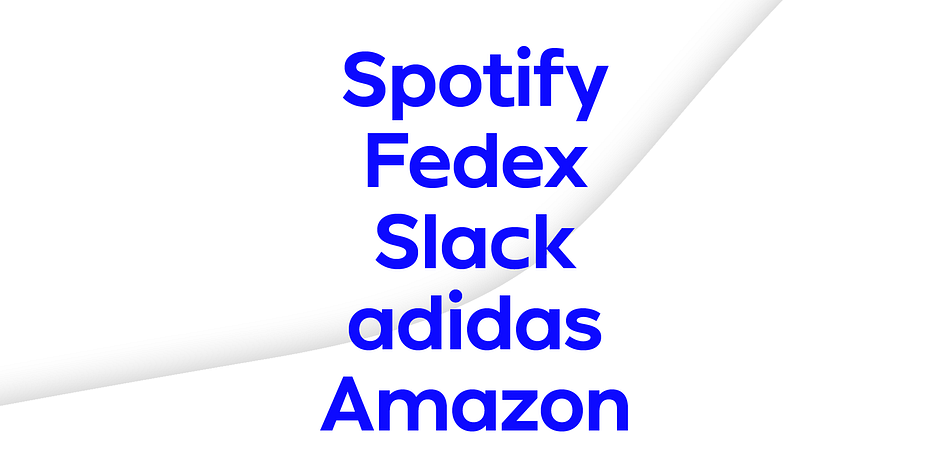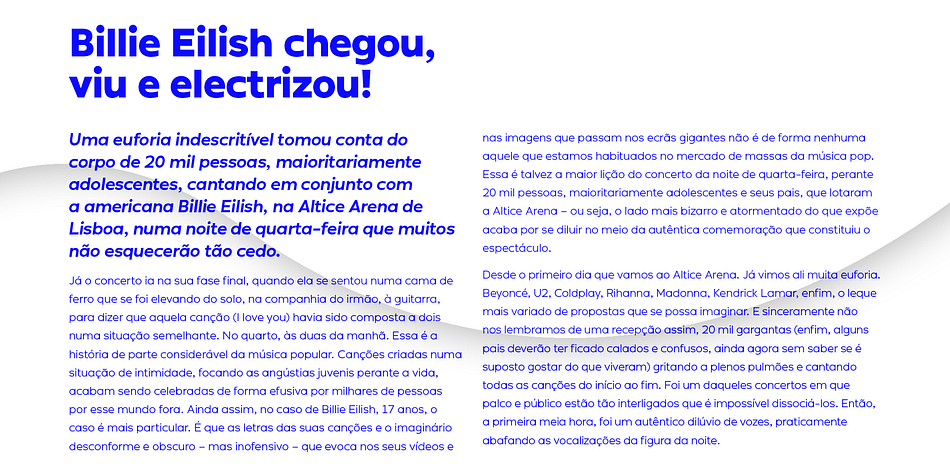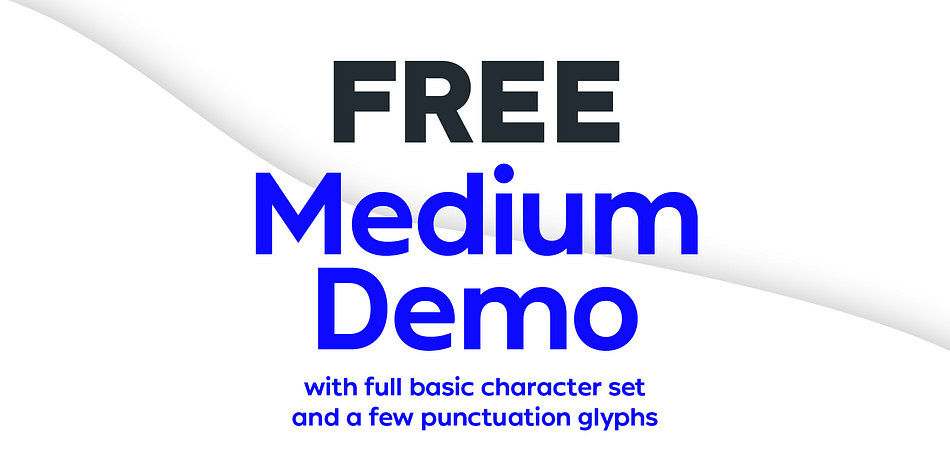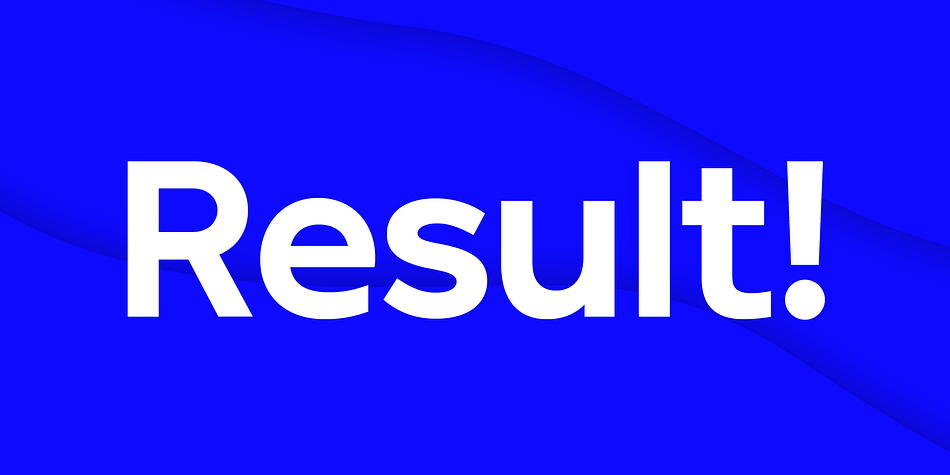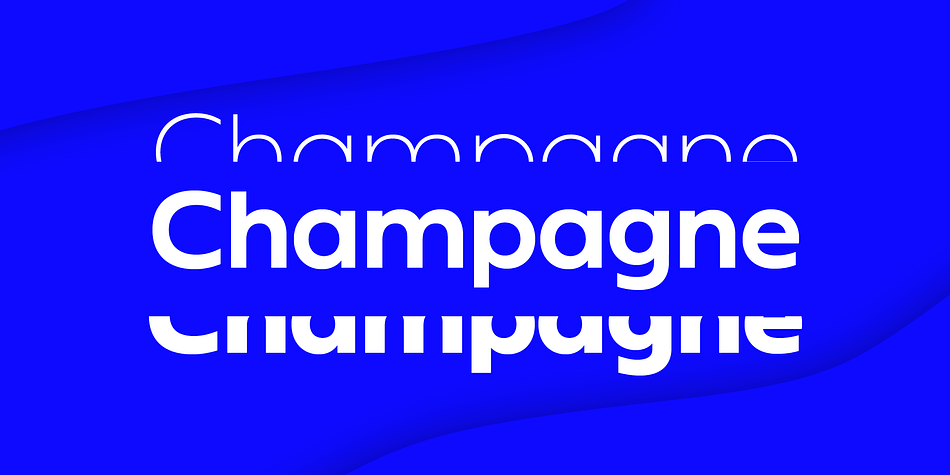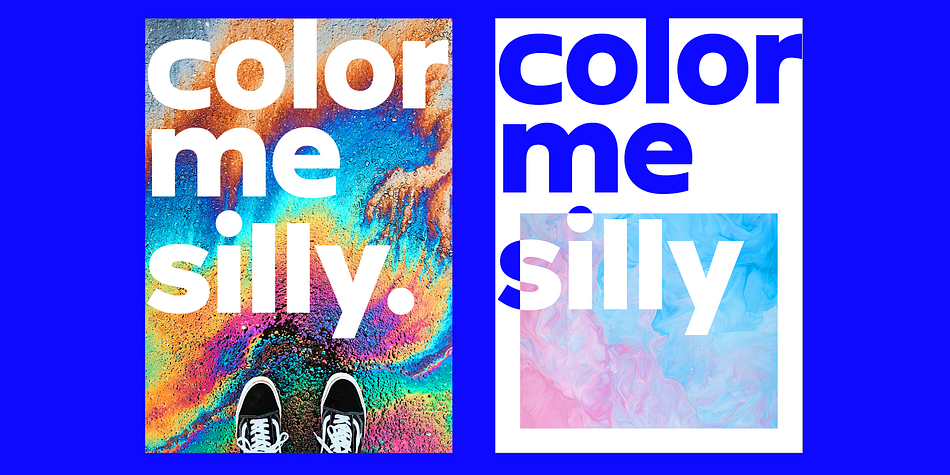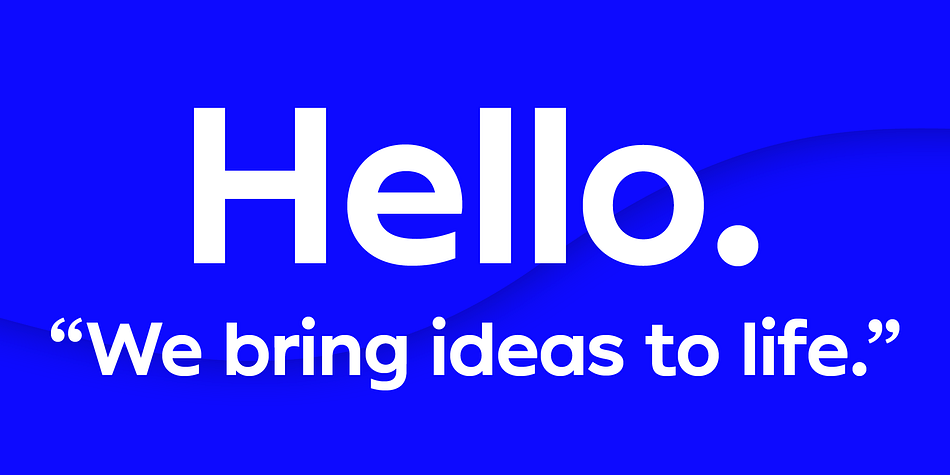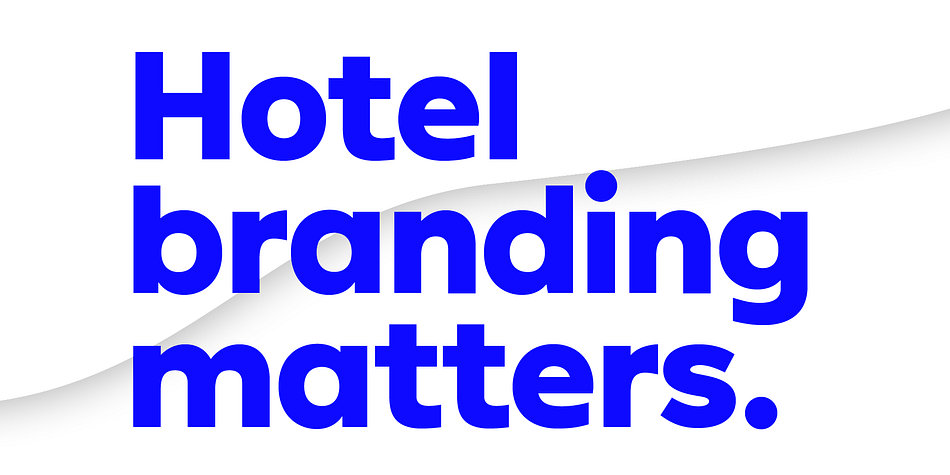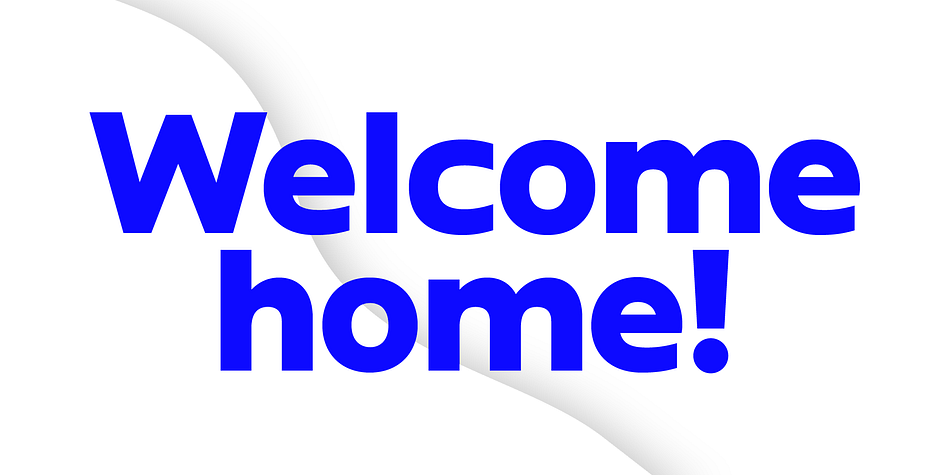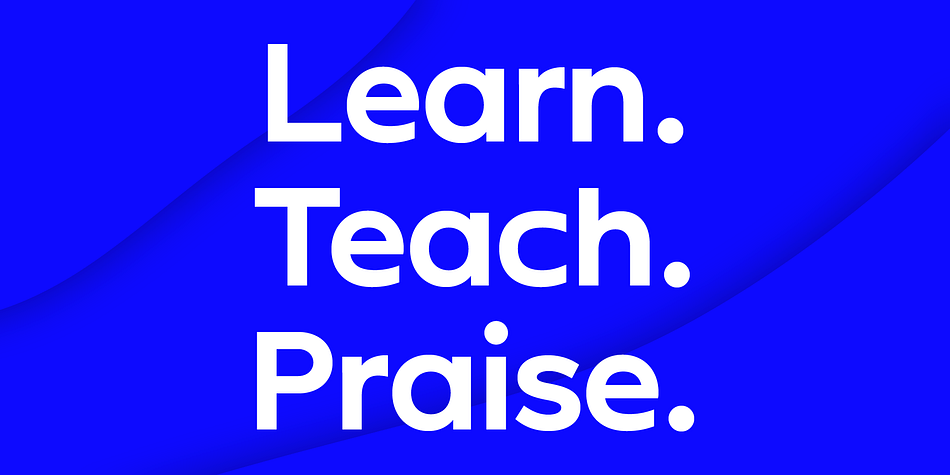
Designed by João Symington, Ondo is a sans serif font family. This typeface has eleven styles and was published by JAM Type.
Ondo is a low contrast geometric sans serif with large open counters which give the typeface a somewhat bold and contemporary appearance. This feature gives Ondo a fun yet sensible feel which can be used for both large chunks of text as well as for short headlines. Ondo comes with more than 370 glyphs, supporting a wide range of languages. With its 10 fonts, Ondo is an ideal font family for text, branding, signage, print and digital design.